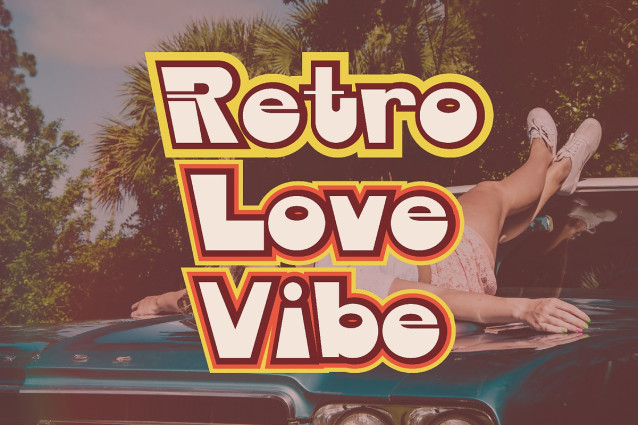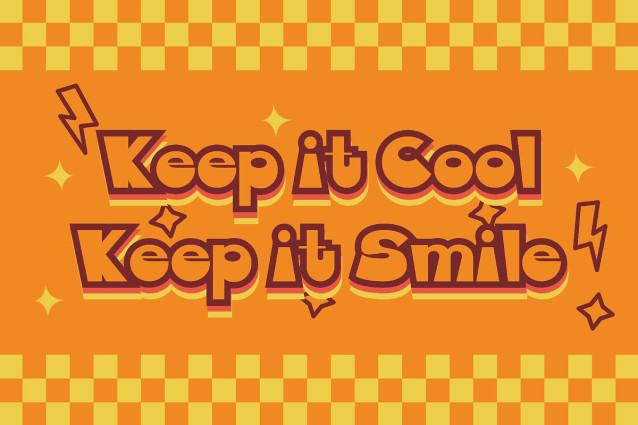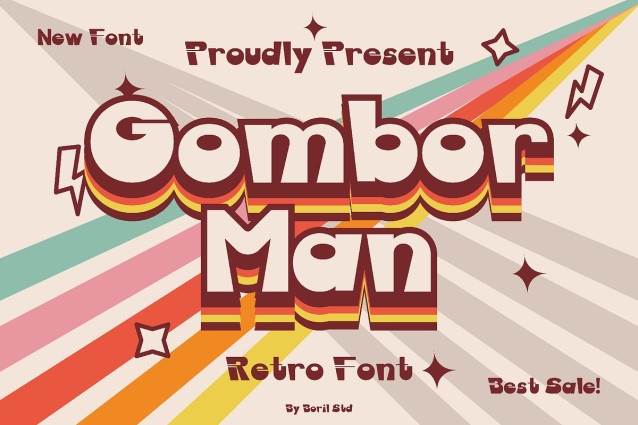
Gombor Man Font
Gombor Man Font – A retro-futuristic, modular, geometric typeface with a 1970s–1980s cut-out. The lowercase letters maintain visual consistency with the uppercase letters, but add a bit of softness and legibility. Overall, the font has a pleasant retro vibe, ideal for vintage concert posters, vintage packaging, and vintage-themed branding.